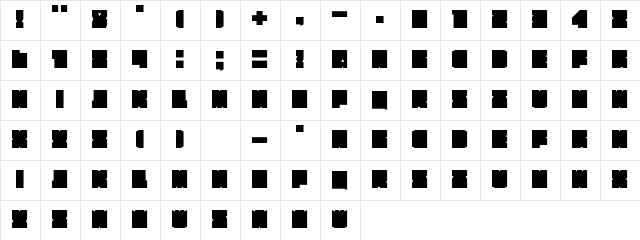
Bildhauer Kant Regular Free Font
Bildhauer Kant Regular
Foundry: Tobias Battenberg
Designer: Tobias Battenberg
Design Context for Bildhauer Kant
Bildhauer Kant is a composed and adaptable typeface that performs quietly and consistently across a wide range of design contexts.
Pro Tip: Use Bildhauer Kant in both headline and body roles to test its range before committing to a single application.